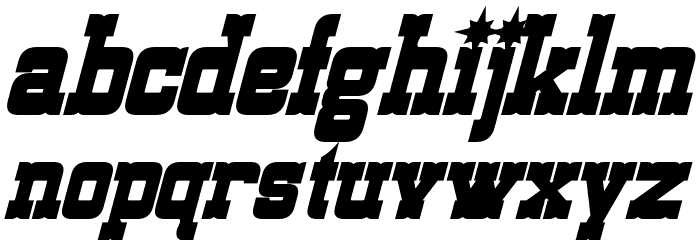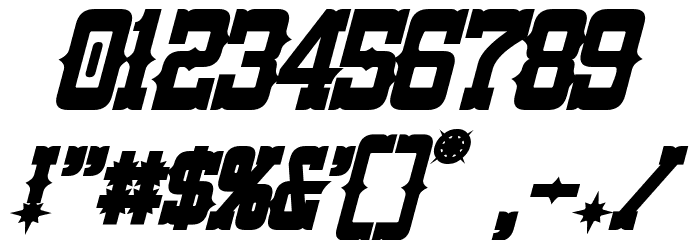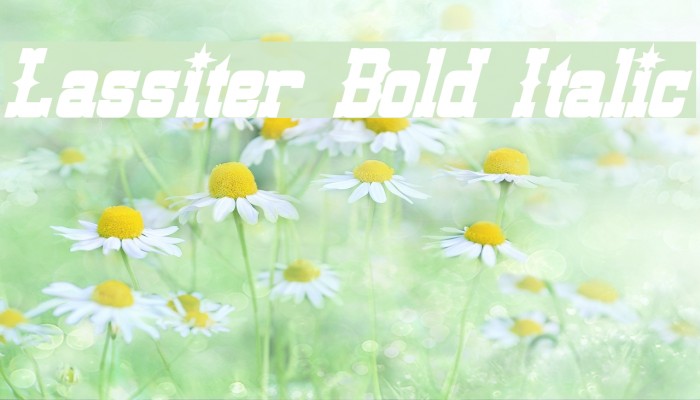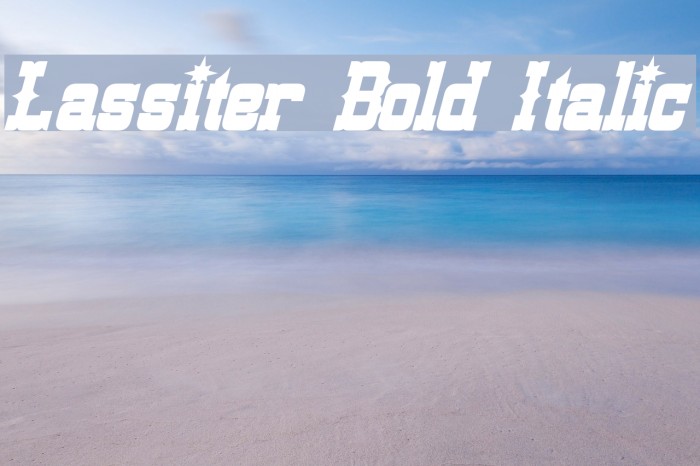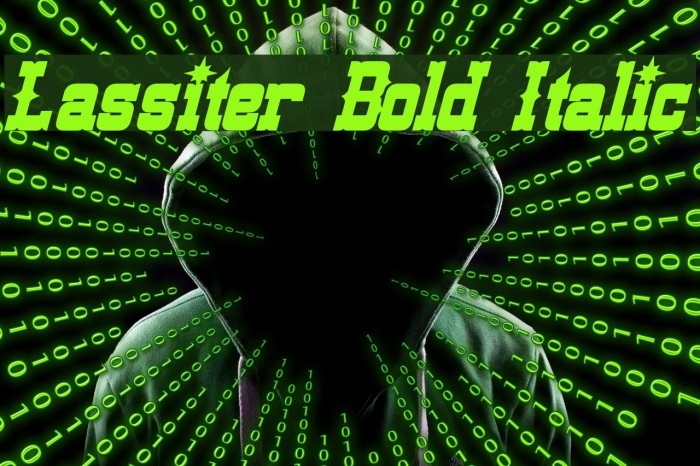
Lassiter Bold Italic Font
This bold and italic font features a dynamic and energetic style, characterized by its thick, angular strokes and slanted orientation. The uppercase and lowercase letters maintain a consistent boldness, with sharp edges and a slightly condensed form that enhances its impactful appearance. The numbers and special characters follow the same stylistic cues, ensuring uniformity across all glyphs. The font's high contrast between thick and thin strokes adds to its dramatic flair, making it stand out in any design. Its decorative elements, such as the star-like accents on certain characters, contribute to a unique and eye-catching aesthetic.
A bold, italic, and dynamic font with high contrast and decorative elements.
- Proposed Projects: Ideal for posters, logos, and branding projects that require a strong and energetic visual impact.
- Character Spacing: Tight